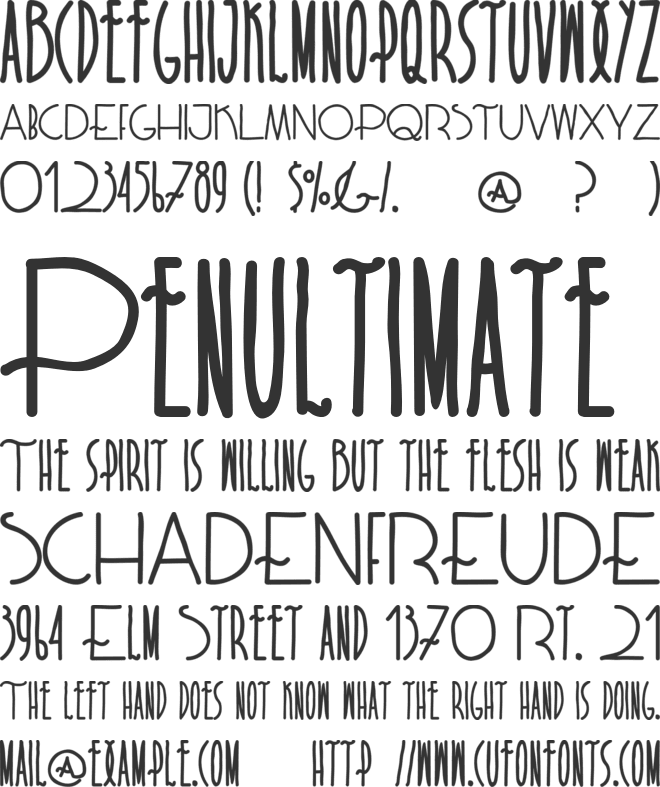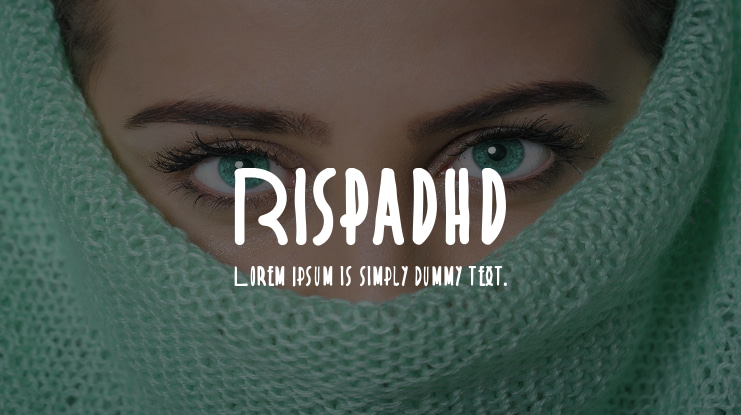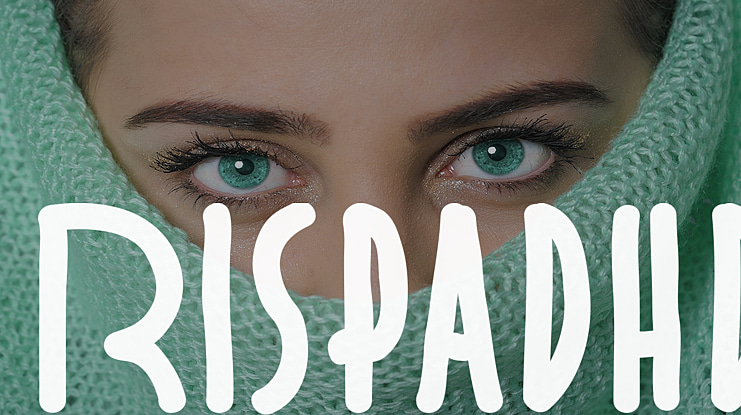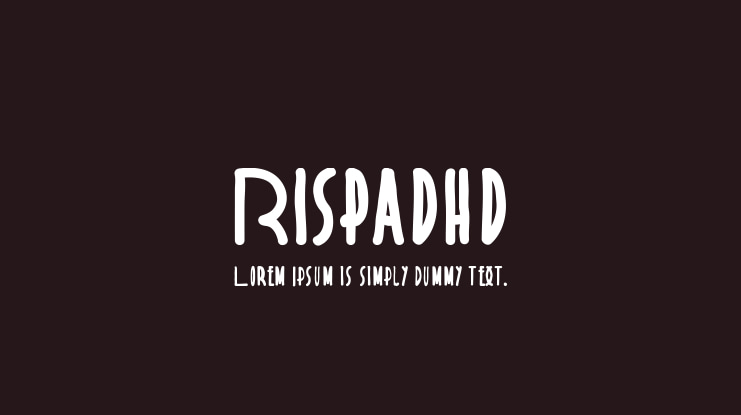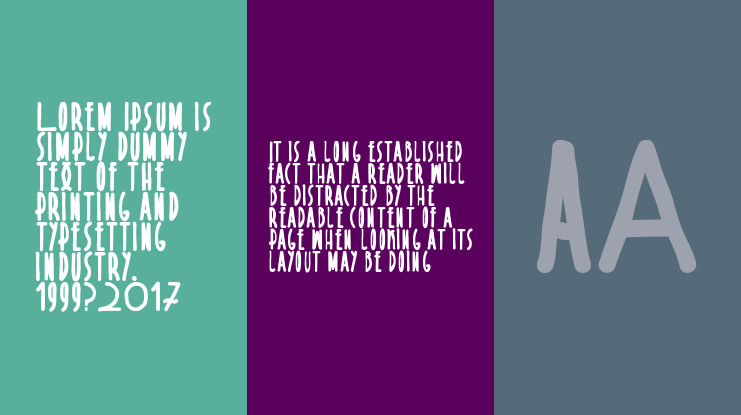
Rispadhd Font Family
This is a crossover between Rispa and DHD, two other fonts I have created. It gives us a kind of "classic" art deco font with a funky, DIY finish. It's a mix between Paris and SF... ;)